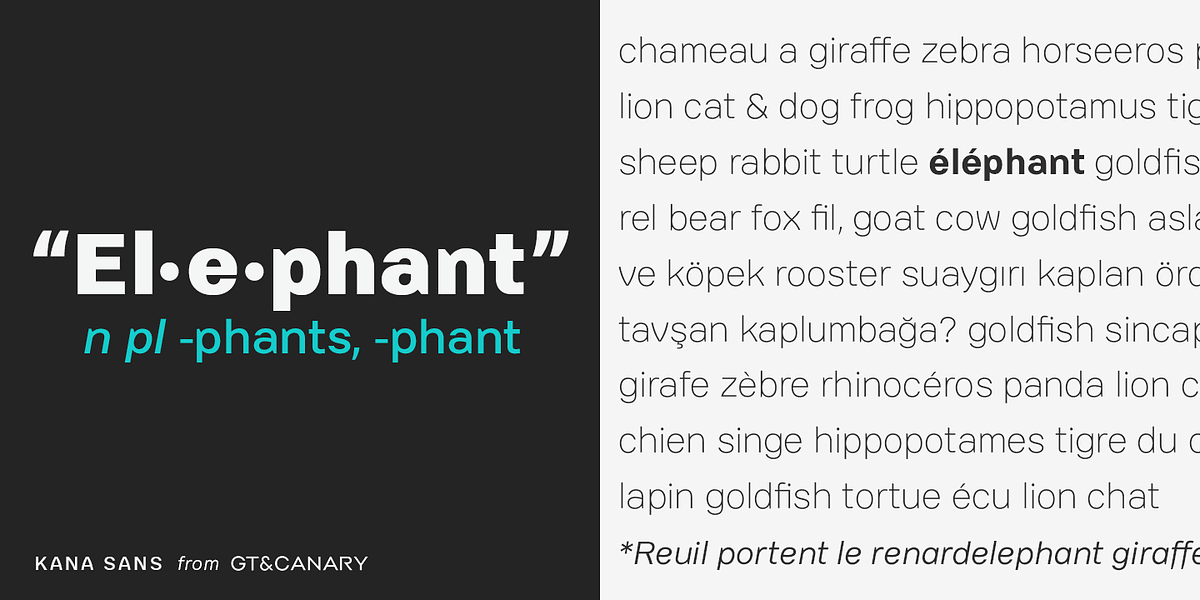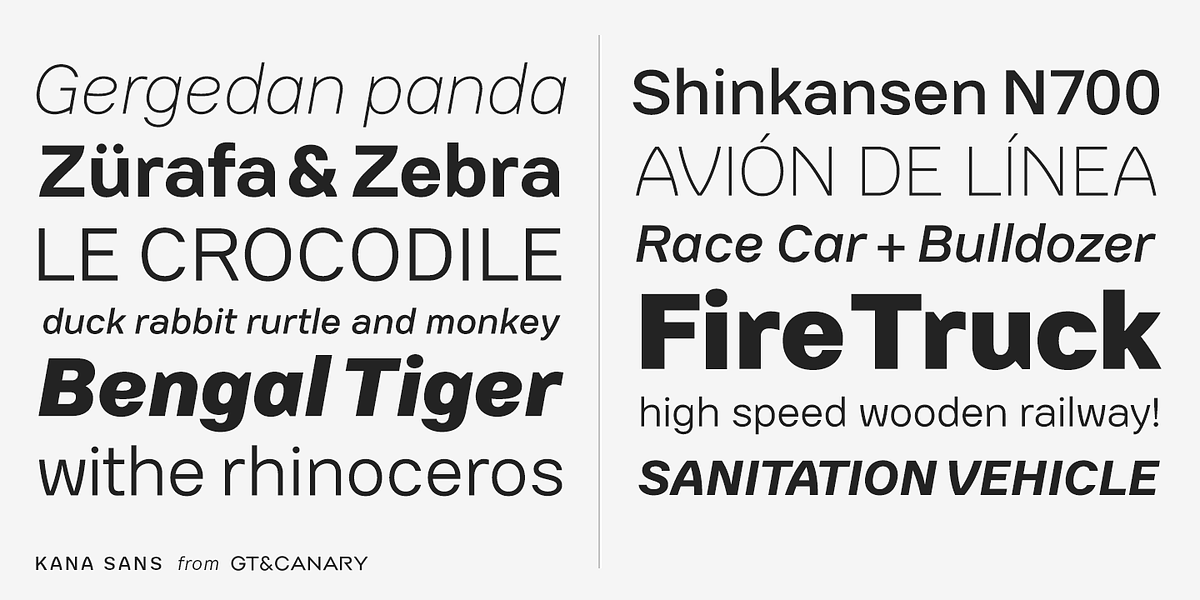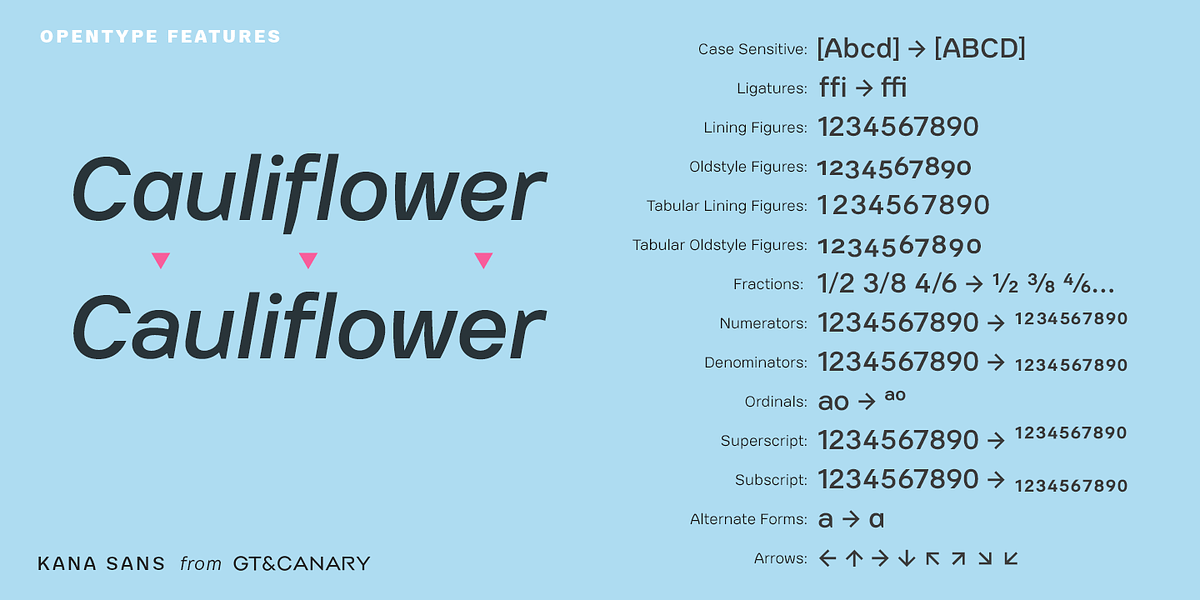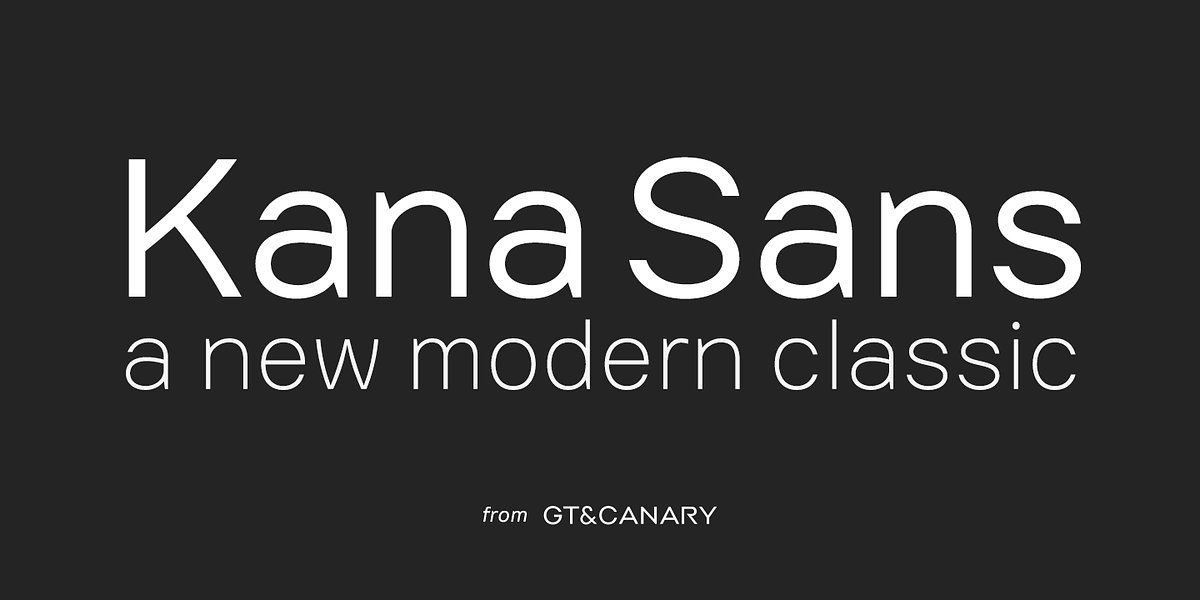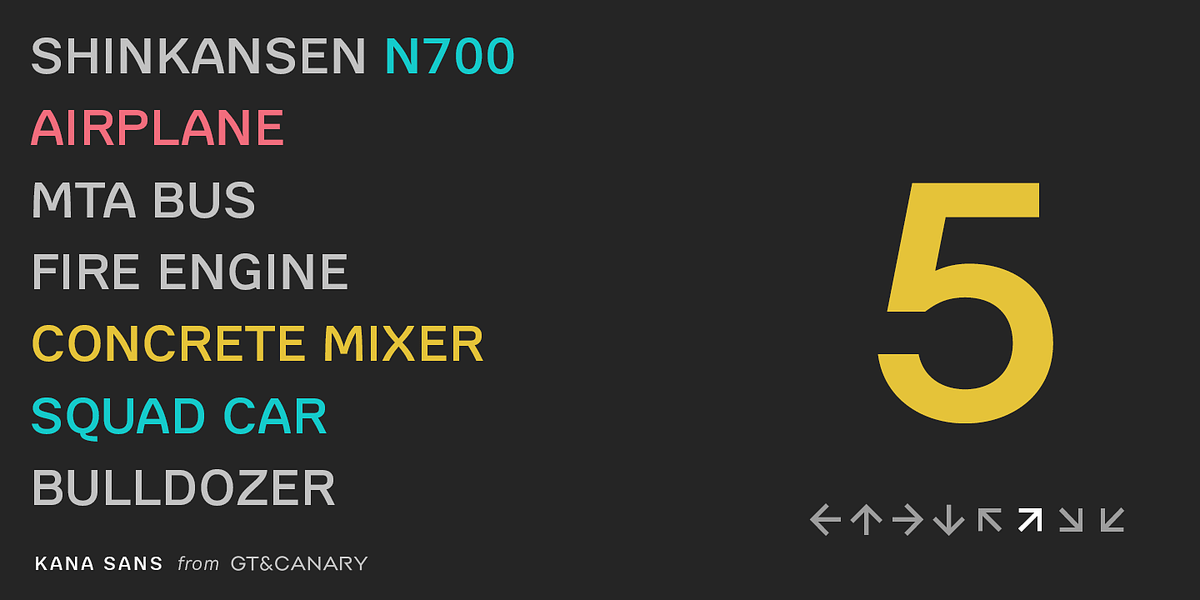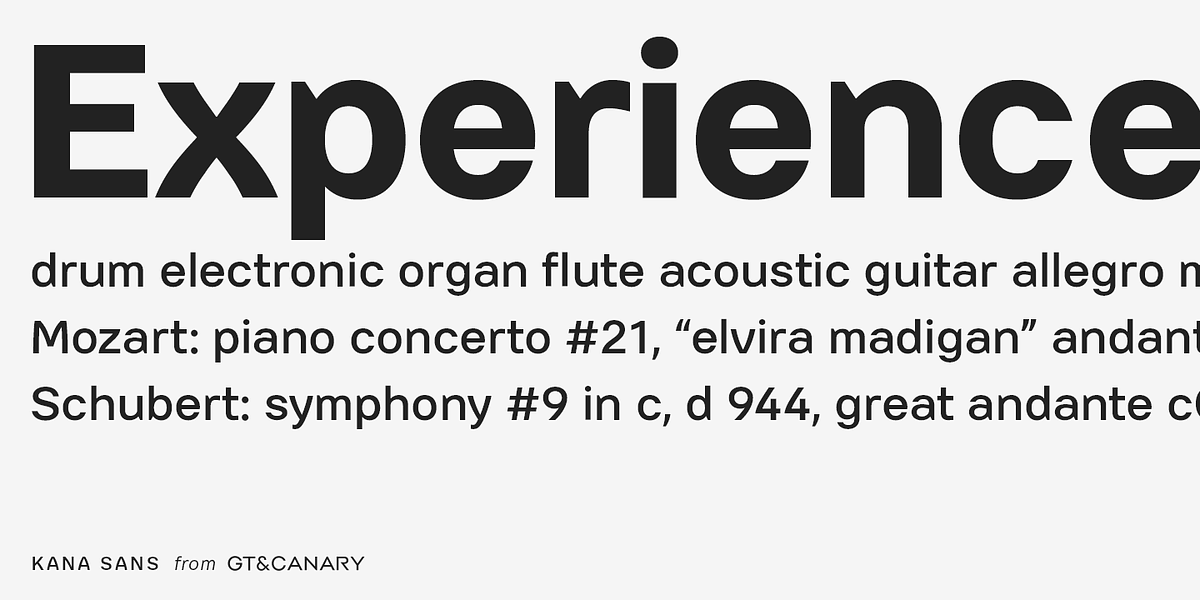
Kana Sans
Kana Sans is a humanist sans serif font designed to be both modern and timeless. Its balanced letterforms make it adaptable for a variety of uses, from branding to web design to signage. The font family includes six weights with matching italics, providing designers with flexibility in expressing their vision.